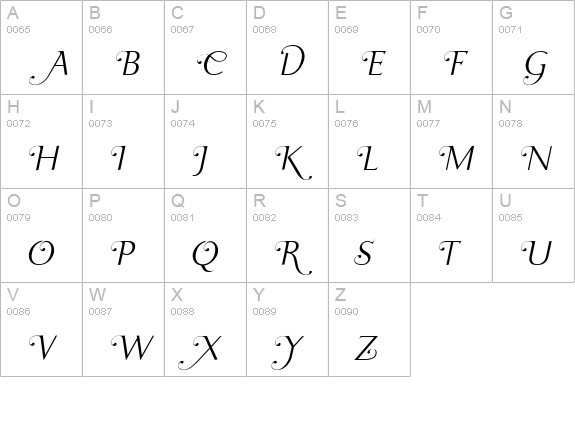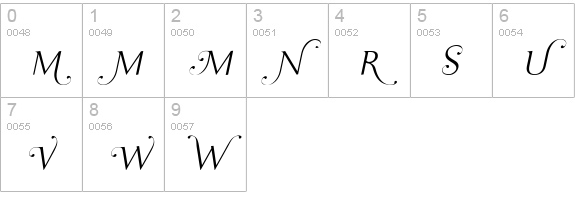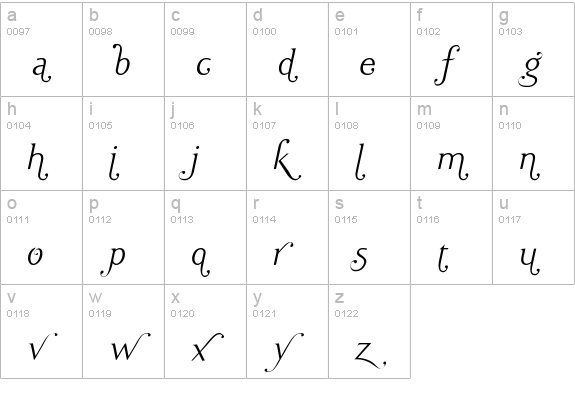
Ela Swashes XeLight Italic PDF Font Details
Ela Swashes XeLight Italic PDF is a distinctive, italic variant in the Ela typeface family \xE2\x80\x94 well suited to design and typography projects.
Ela Swashes XeLight Italic PDF font is a sleek and elegant typeface designed for those seeking a touch of sophistication in their projects. With delicate swashes and a light italic style, this font exudes a sense of grace and refinement. Perfect for adding a stylish flair to invitations, logos, and other design projects, Ela Swashes XeLight Italic PDF font is sure to make a lasting impression. Best of all, this font is available for free download at FontsMarket.com. Simply visit the website to access this beautiful typeface and elevate your designs to the next level. Don't miss out on the opportunity to enhance your creations with the timeless beauty of Ela Swashes XeLight Italic PDF font – download it today and let your creativity shine!